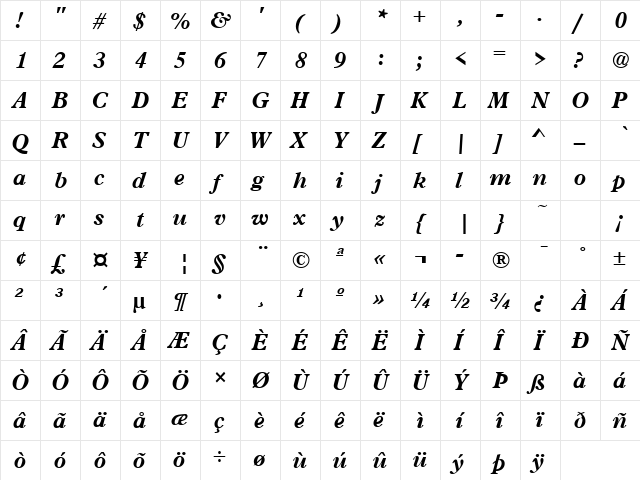
Plato Bold Italic
Design Context for Plato Typeface
Plato is a composed and adaptable typeface that performs quietly and consistently across a wide range of design contexts. The dynamic lean of this cut emphasises speed and emphasis in any layout. The heavy weight commands attention and anchors typographic hierarchies.
Pro Tip: Use Plato for emphasis, pull quotes, and subheadings where its slanted energy can add rhythm to the layout.